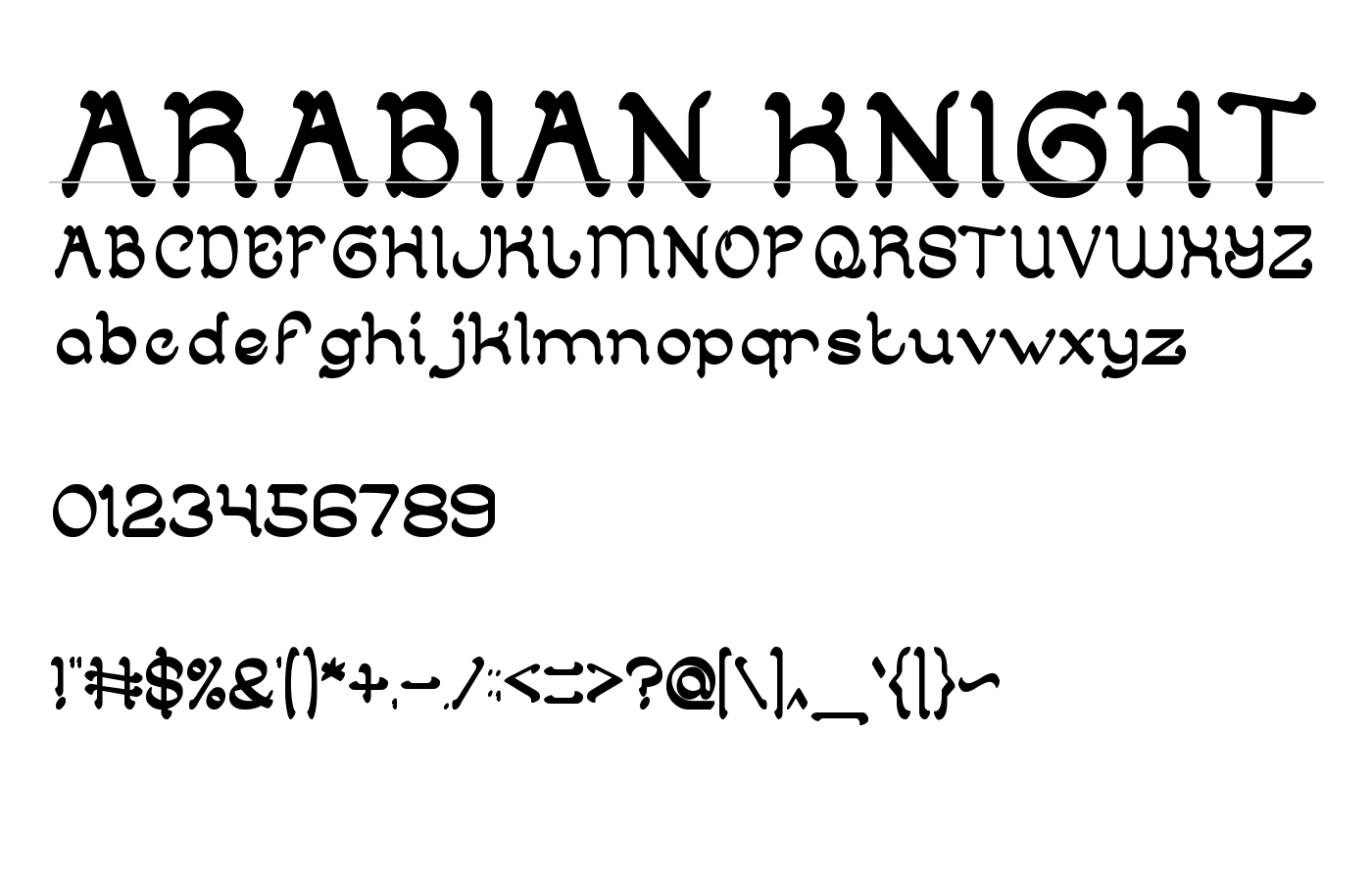
Arabian Knight is a decorative serif font with a unique blend of whimsical and gothic influences, characterized by its medium weight, moderate contrast, and distinctive curled terminals. Its slightly condensed letterforms and playful curves give it an exotic, vintage feel that works well for themed designs, logos, and creative headlines seeking a bold, adventurous character. This font is perfect for projects that want to evoke a mysterious, old-world charm with a touch of fantasy.
ARABIAN KNIGHT Font